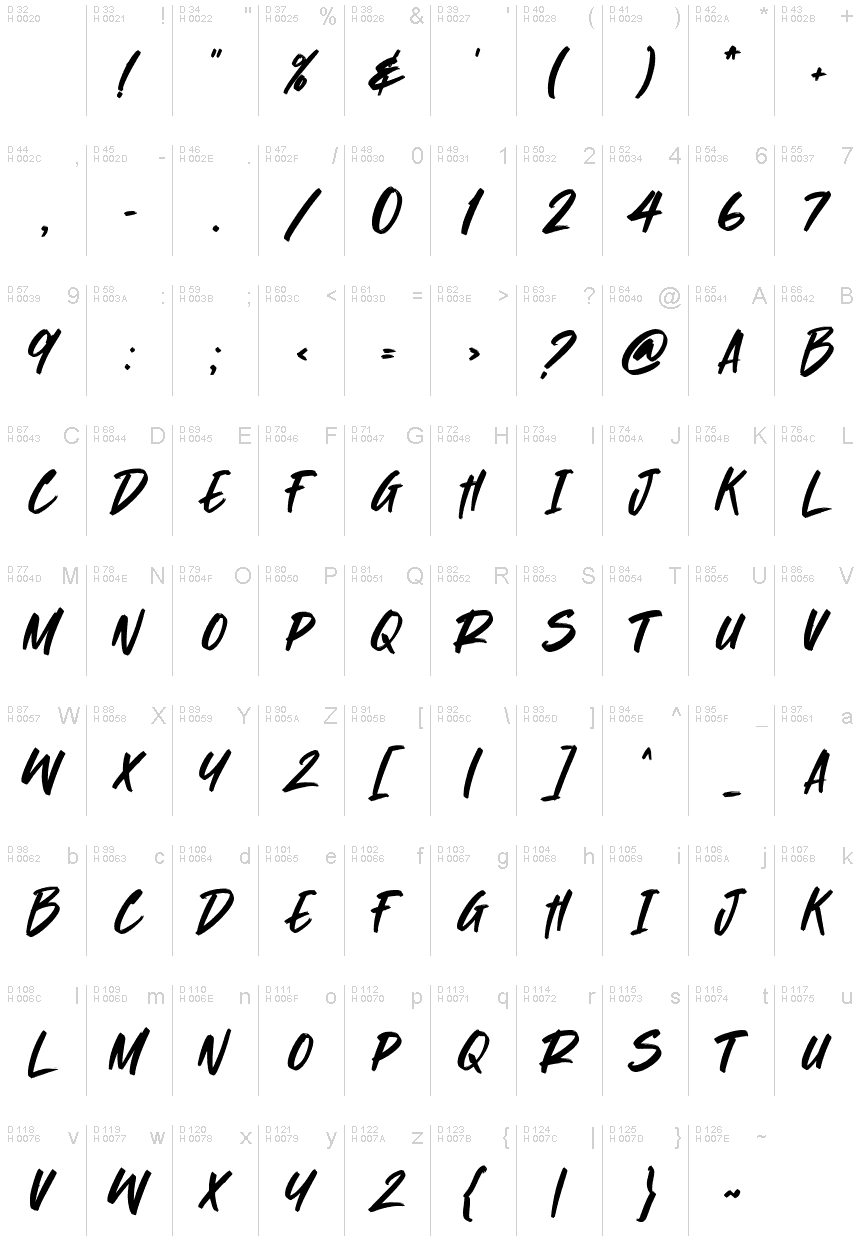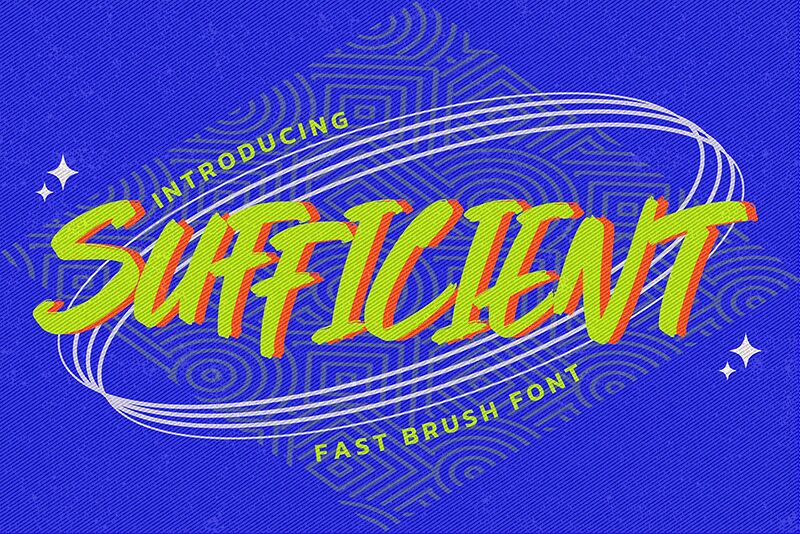
Sufficient
Capture attention and add a touch of spontaneity to your creative projects with SUFFICIENT - the fast brush font designed by Gassstype.
Its authentic style and dramatic movement are perfect for adding a natural and cool vibe to labels, posters, project designs, quotes, packaging, branding, and more. The textured and unique characteristics of SUFFICIENT make it stand out from other brush fonts, giving your designs a more natural look.
With the ability to activate alternate glyphs through the OpenType panel, this font offers even more versatility for your projects. Whether you're working on a DIY project, photography overlay, website design, or greeting card, SUFFICIENT is the ideal choice for adding a touch of spontaneity and creativity.
Let SUFFICIENT elevate your designs with its casually written style that exudes energy and charm.